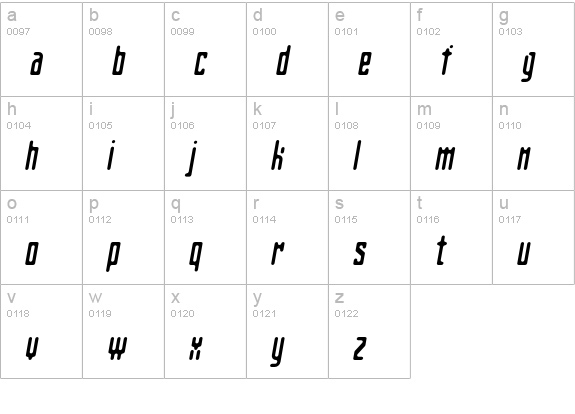
Introducing Matica-NormalOblique font, a captivating typeface that effortlessly blends elegance and modernity. With its sleek curves and distinctive oblique style, Matica-NormalOblique adds a touch of sophistication to any design project. This font is the perfect choice for those seeking a versatile and eye-catching typeface that can elevate their work to the next level. Whether you're designing a logo, creating a poster, or working on a branding project, Matica-NormalOblique will help you make a lasting impression. But what sets Matica-NormalOblique apart from other fonts is that it is not only visually stunning but also freely available to download. Yes, you read that right! You can now enhance your designs with this exceptional font without spending a dime. Thanks to FontsMarket.com, Matica-NormalOblique is just a few clicks away. Simply visit the website and discover a world of possibilities. Whether you're a professional designer or an aspiring artist, this font will become an invaluable tool in your creative arsenal. So, why wait? Download Matica-NormalOblique today and let your imagination run wild. With its seamless integration into various design software and its captivating aesthetic, this font is guaranteed to leave a lasting impression on your audience. Unleash your creativity and elevate your designs with Matica-NormalOblique.